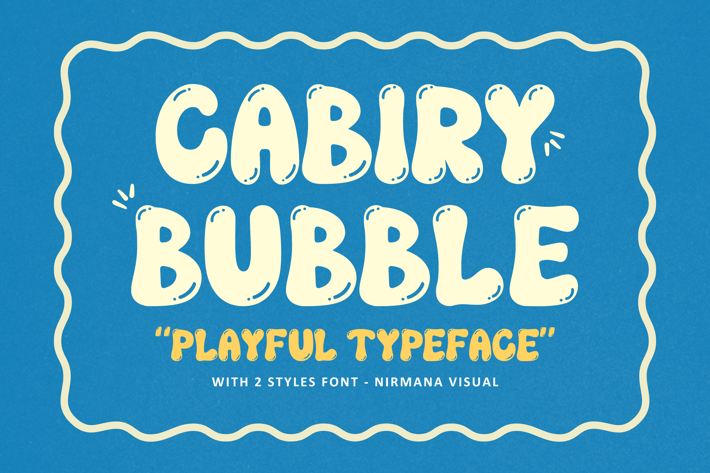
Cabiry Bubble - Branding Logo Font
Cabiry Bubble Font offers beautiful typographic harmony for a diversity of design projects, including logos & branding, social media posts, advertisements & product designs.